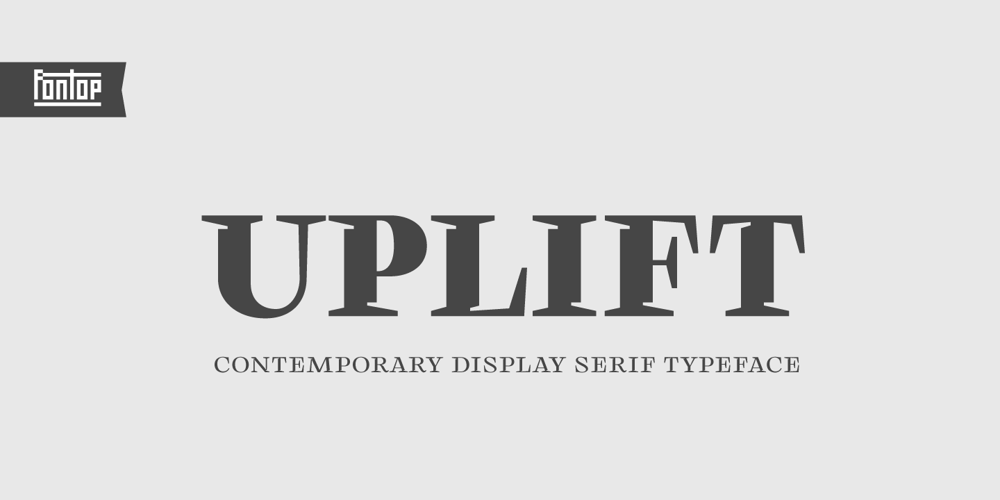
Uplift
Uplift font
Uplift Font Family was designed by Dmitry Arakelov and published by Fontop. Uplift contains 6 styles and family package options. Uplift is a modern serif typeface with its own character and charisma. Works cool both when used in headlines, magazines, pull quotes and also in branding, unique logos, etc.Uplift comes with multilingual support also and also feature stylistic alternates.